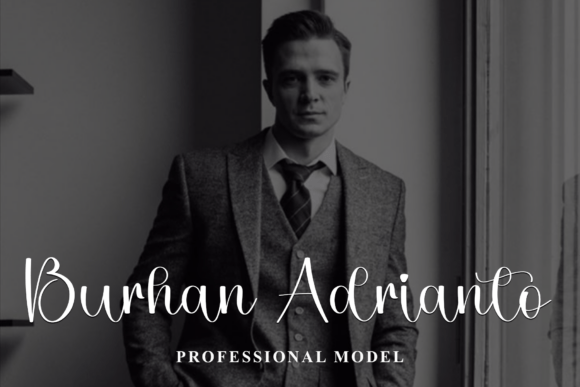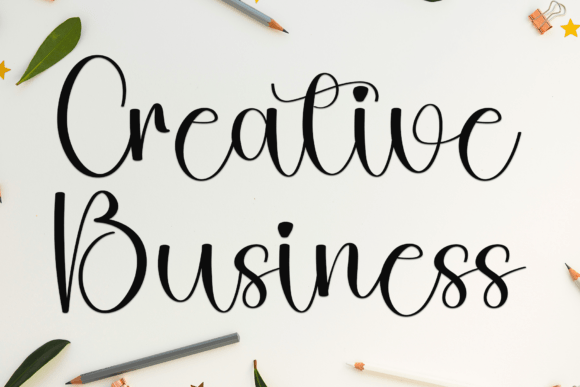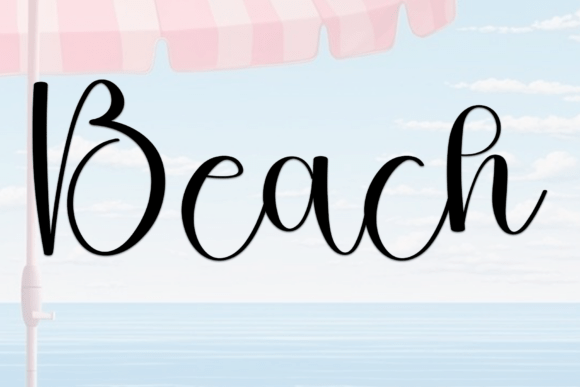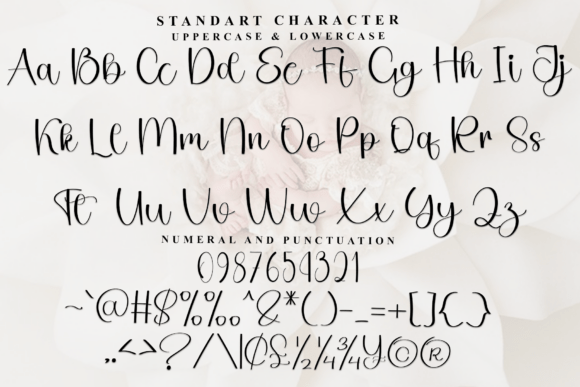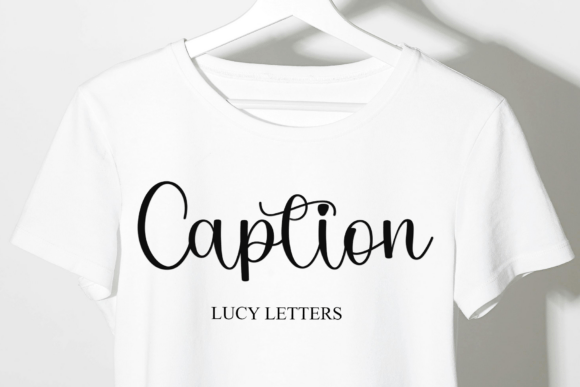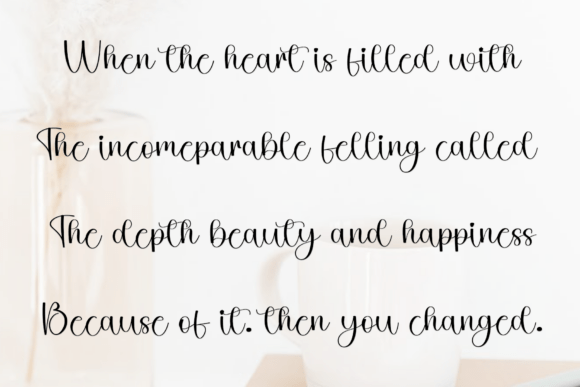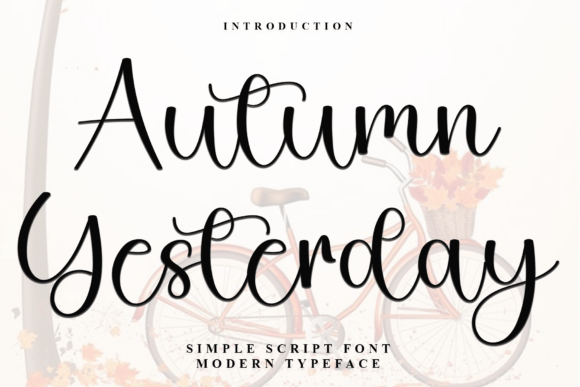
Discover the Charm of Autumn Yesterday Font: Elevate Your Designs with a Unique Touch
Are you on the lookout for a font that adds a special touch to your design projects? Look no further than the Autumn Yesterday Font. This beautiful, eye-catching font is designed with a soft, unique touch that sets it apart from more traditional fonts. Its distinctive strokes give it a special character, making it not only aesthetically pleasing but also meaningful and versatile for future use.
What Makes Autumn Yesterday Font Stand Out?
The Autumn Yesterday Font boasts a range of features that make it an excellent choice for designers and crafters alike. Here are just a few reasons why this font is making waves in the design community:
- Unique and Distinctive Strokes: The font’s soft, unique touch is immediately noticeable. Each stroke is carefully designed to give the font a special character that is both appealing and memorable.
- Versatility: Whether you’re working on a design project, craft, or other creative work, the Autumn Yesterday Font is versatile enough to fit in seamlessly. Its distinctive style can add a touch of elegance or whimsy, depending on the context.
- Wide Range of Characters: The font comes with a variety of characters, ensuring that you have plenty of options for your design needs. From letters and numbers to special characters, Autumn Yesterday Font has got you covered.
For designers and crafters, finding the right font can be a game-changer. The Autumn Yesterday Font is perfect for a wide range of projects, including:
- Graphic Design: Add a unique touch to your brochures, posters, and digital content.
- Crafts: Whether you’re making handmade cards, scrapbooking, or working on other paper crafts, this font will elevate your creations.
- Digital Content: Use it in your blog posts, social media graphics, or website to give your content a distinctive look.
Enhance Your Designs with Autumn Yesterday Font
The natural style of the Autumn Yesterday Font makes it an ideal choice for designers and crafters looking to create products that appeal to a wide audience. Its unique touch can transform your designs, making them more engaging and memorable. Here are a few ways you can use this versatile font:
- Branding: Use Autumn Yesterday Font in your branding materials to give your brand a unique and recognizable voice.
- Packaging: Add a personal touch to your product packaging with this distinctive font.
- Advertising: Stand out in advertising with a font that captures attention and leaves a lasting impression.
The Autumn Yesterday Font is a game-changer for designers and crafters looking to add a unique touch to their projects. Its distinctive strokes, versatility, and compatibility with various applications make it an excellent choice for a wide range of creative works. Whether you’re working on graphic design, crafts, or digital content, this beautiful font is sure to enhance your designs and make them appealing to a broad audience. So why wait? Discover the charm of Autumn Yesterday Font today and elevate your designs to the next level.